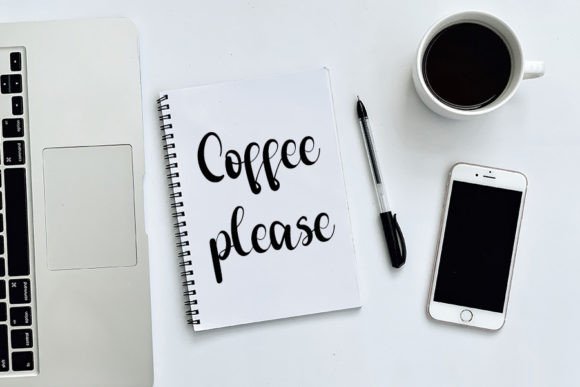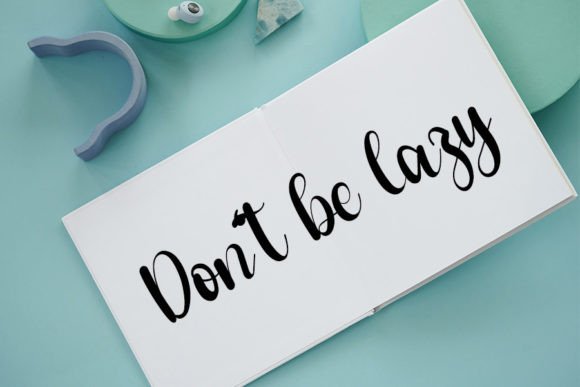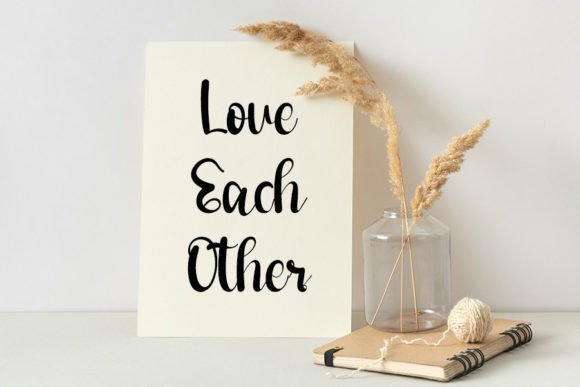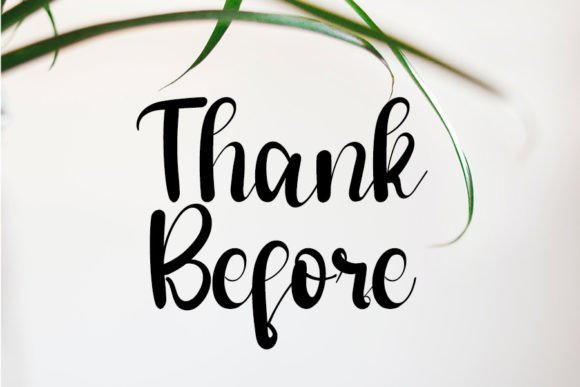
Introducing Beautiful Season Font: Elevate Your Designs with Elegance
Are you on the hunt for a font that adds a touch of sophistication and charm to your projects? Look no further than the Beautiful Season Font. This stunning handwritten font is designed to bring an air of elegance to your designs, making it perfect for crafters, designers, and anyone looking to create visually appealing content.
A Timeless and Distinct Style
The Beautiful Season Font boasts an incredibly distinct and timeless style that is sure to capture the hearts of designers and audiences alike. Its elegant touch is evident in every curve and line, making it a versatile choice for a wide range of projects. Whether you’re working on a logo, branding materials, social media graphics, or even a website, this font is sure to make your designs stand out.
What Makes Beautiful Season Font So Special?
So, what sets the Beautiful Season Font apart from other fonts on the market? Here are just a few reasons why designers and crafters are falling in love with this gorgeous font:
- Elegant and Refined: The Beautiful Season Font exudes elegance and refinement, making it perfect for projects that require a touch of sophistication.
- Handwritten with Love: This font is carefully crafted with a handwritten touch, giving it a unique and personal feel.
- Versatile: The Beautiful Season Font is incredibly versatile, making it suitable for a wide range of projects, from logos and branding materials to social media graphics and websites.
- Timeless: Unlike trendy fonts that quickly go out of style, the Beautiful Season Font has a timeless quality that ensures your designs will remain stylish for years to come.
How to Use Beautiful Season Font in Your Designs
Ready to fall in love with the Beautiful Season Font? Here are some ideas for incorporating this gorgeous font into your designs:
- Logos and Branding: Use the Beautiful Season Font to create stunning logos and branding materials that exude elegance and sophistication.
- Social Media Graphics: Add a touch of elegance to your social media graphics, including Facebook posts, Instagram stories, and Twitter headers.
- Web Design: Use the Beautiful Season Font to create beautiful website headers, titles, and other design elements.
- Stationery and Paper Goods: Add a touch of elegance to your stationery, including invitations, greeting cards, and letterhead.
Tips for Getting the Most Out of Beautiful Season Font
To get the most out of the Beautiful Season Font, here are a few tips to keep in mind:
- Experiment with Colors: The Beautiful Season Font looks stunning in a range of colors, so don’t be afraid to experiment and find the perfect hue for your design.
- Play with Pairings: Try pairing the Beautiful Season Font with other fonts to create a unique and eye-catching design.
- Use it Sparingly: While the Beautiful Season Font is gorgeous, it can be overwhelming if used too much. Use it sparingly to create a beautiful and elegant design.
In conclusion, the Beautiful Season Font is a stunning handwritten font that is sure to elevate your designs with its elegant touch. With its timeless and distinct style, this font is perfect for designers and crafters looking to create visually appealing content. Whether you’re working on a logo, social media graphics, or website design, the Beautiful Season Font is sure to make your designs stand out. So why wait? Fall in love with this gorgeous font and take your designs to the next level!